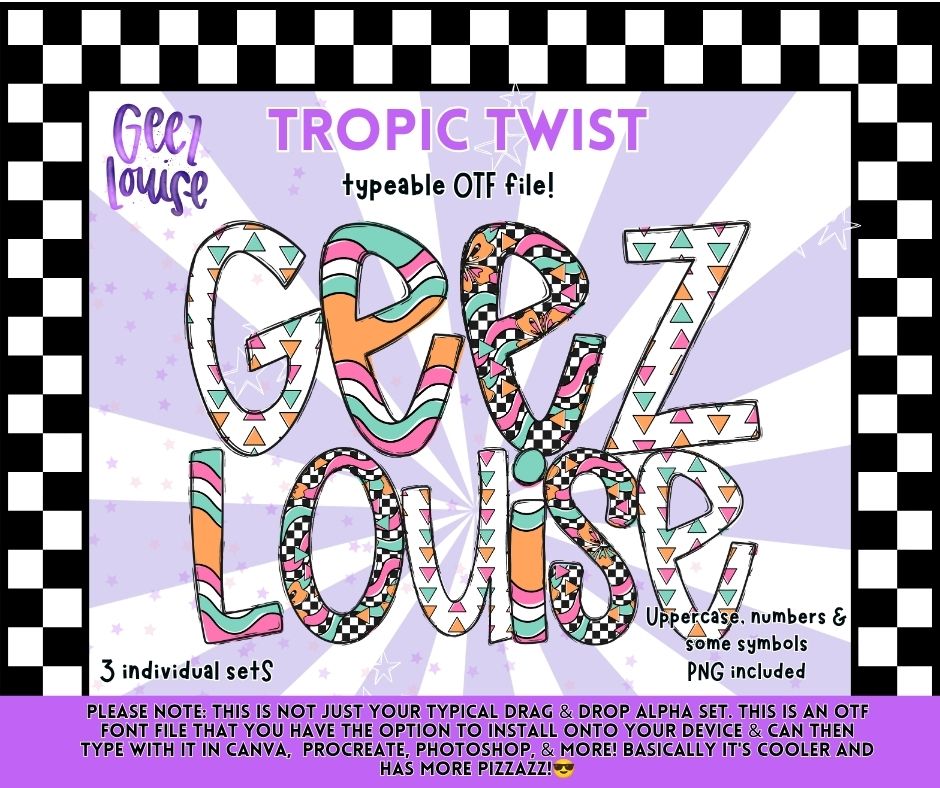
Tropic Twist OTF Alpha Font + PNG Set
Bring retro summer vibes to your next project with Tropic Twist! Featuring playful pastel-inspired patterns, checkerboard accents, squiggles, and geometric details, this fun alpha set is perfect for creating eye-catching designs all season long.
✔ Uppercase Letters
✔ Numbers
✔ Select Symbols & Punctuation
✔ 3 Coordinating Pattern Styles